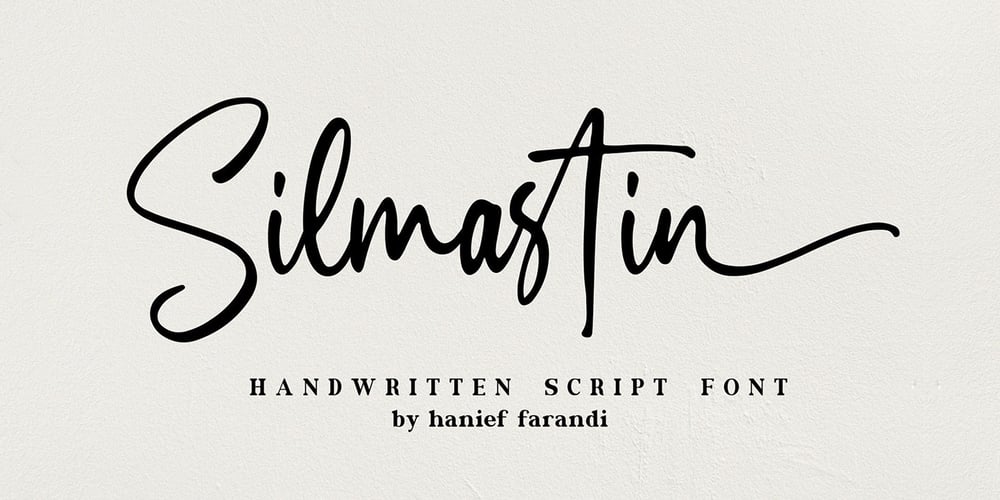
Silmastin Font Family was designed by Hanief Farandi and published by Hanzel Space. Silmastin contains 1 styles and family package options. Introducing of our new product the name is Letteris, the bold script font inspired by Bold hand lettering style, Letteris font is good for branding logotype, headline, book cover, Flyer, Packaging, poster, t-shirt design and any more.Letteris have many alternative character and have opentype features like a stylistic alternatice, stylistic set, ligature and swash so you can mix and match like a you want.MULTiLINGUAL ACCENTšŸÀÁÂÃÄÅÆÇÈÉÊËÌÍÎÏÐÑÒÓÔÕÖØÙÚÛÜÝßàáâãäåæçèéêëìíîïðñòóôõöøùúûüýÿ